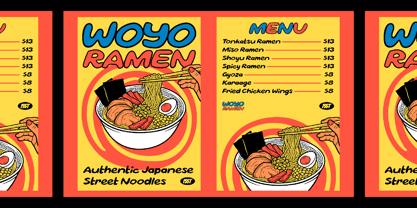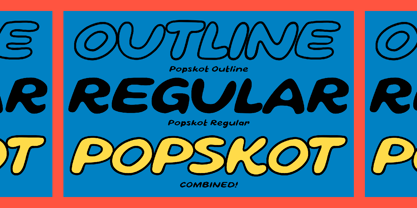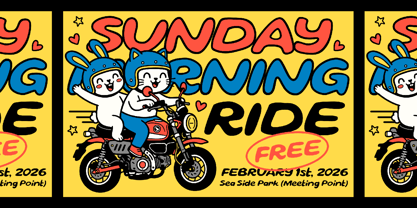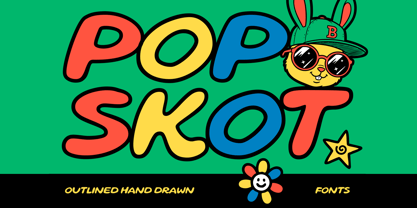
Popskot
by Konstantine Studio
The Popskot Font Family was designed by Abdilah and published by Konstantine Studio. Popskot contains 2 styles and family package options. More about this family
Inject a shot of pure dopamine into your design toolkit with Popskot, a high-energy font duo designed for creators who aren't afraid to take up space. Inspired by the bold, bouncy aesthetics of street pop-art and retro cartooning, this hand-drawn powerhouse features a tactical two-font system: a thick, "juicy" Regular weight and a perfectly calibrated Outline. By simply stacking the two together, you unlock a professional, multi-colored "sticker" effect that instantly transforms flat text into high-impact, 3D-inspired typography with an organic, handcrafted soul. Whether you are building a playful brand identity, designing scroll-stopping social media graphics, or crafting packaging for the next cult-favorite snack, Popskot delivers "main character energy" to every layout. It is the ultimate choice for food and beverage branding, event posters, and streetwear apparel that needs to feel both nostalgic and modern. Stop blending into the background and start popping out; Popskot gives your projects the loud, unapologetic personality required to command attention in a crowded world.
Designers: Abdilah
Foundry: Konstantine Studio